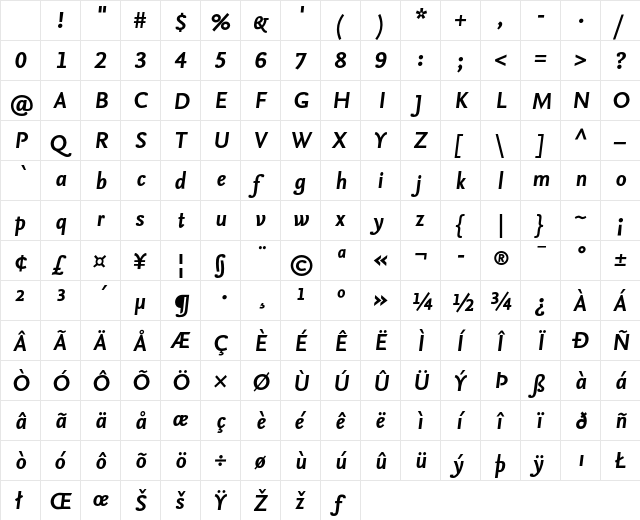
NexusSans is a composed and adaptable typeface that performs quietly and consistently across a wide range of design contexts. The slanted form adds forward momentum and visual energy. Its bold stroke weight gives it real presence on the page.
Pro Tip: Use NexusSans for emphasis, pull quotes, and subheadings where its slanted energy can add rhythm to the layout.